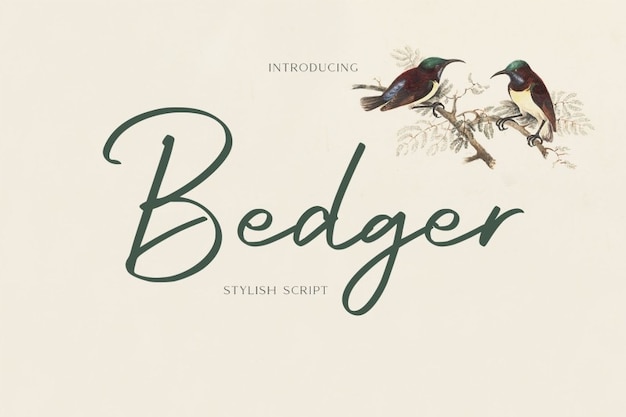
Bedger Font
It is the embodiment of handwriting elegance. Its stylish, flowing strokes exude a sense of sophistication and grace. Each character is meticulously crafted to create a font that's both timeless and contemporary. Whether used for invitations, branding, or any design project, "Bedger" adds an elegant touch that's bound to leave a lasting impression.